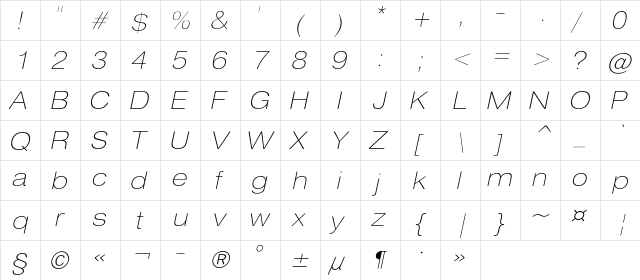
HeliosExtThin Italic
Design Context for HeliosExtThin Typeface
HeliosExtThin is a composed and adaptable typeface that performs quietly and consistently across a wide range of design contexts. The dynamic lean of this cut emphasises speed and emphasis in any layout. The delicate stroke weight brings airiness and refinement to layouts.
Pro Tip: Use HeliosExtThin for emphasis, pull quotes, and subheadings where its slanted energy can add rhythm to the layout.